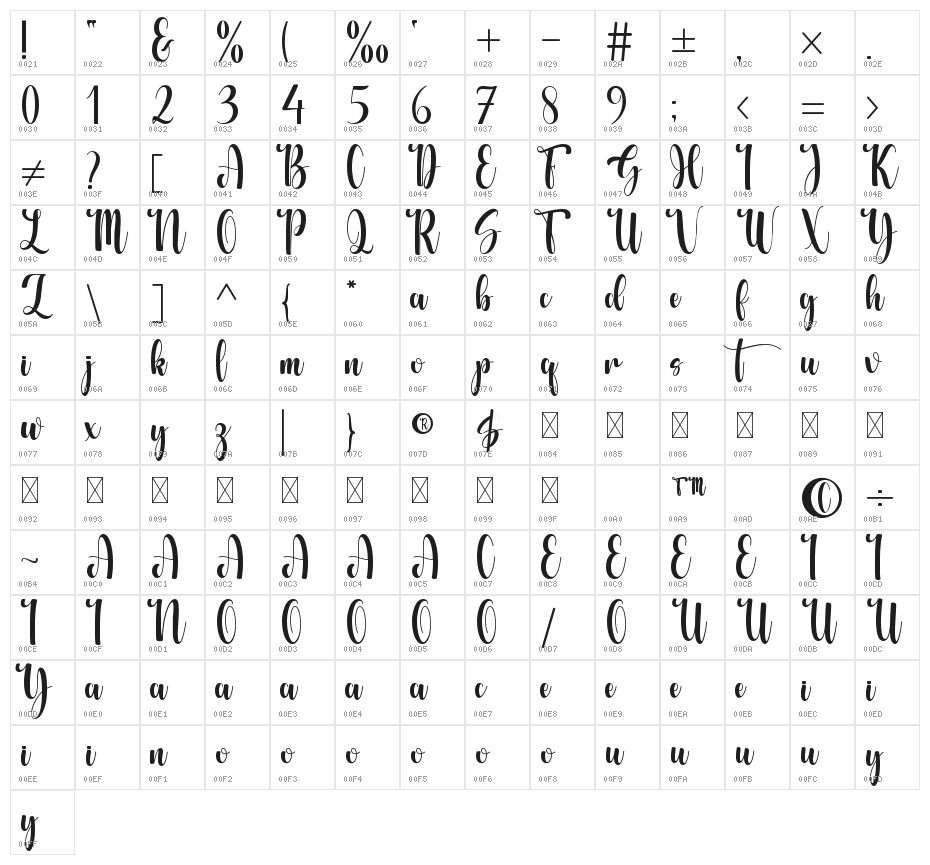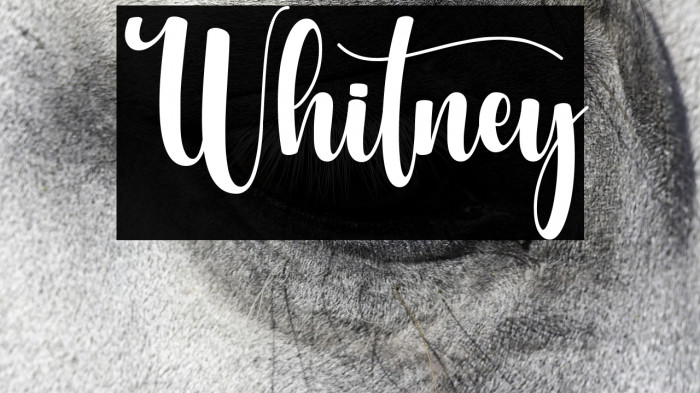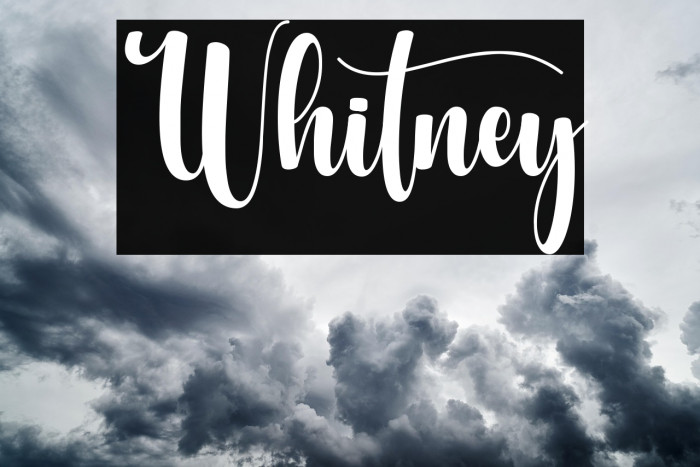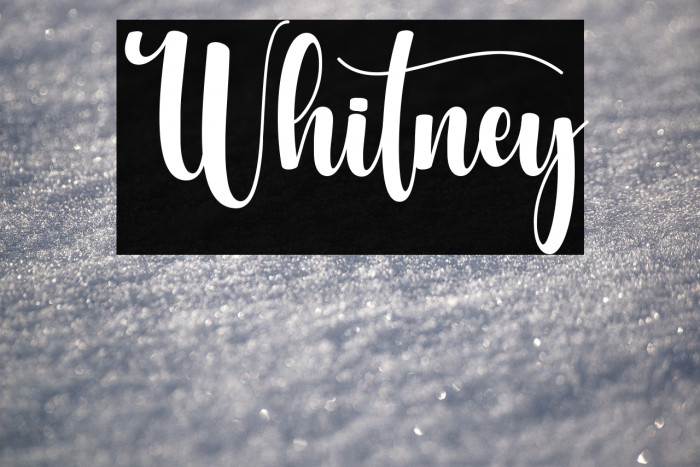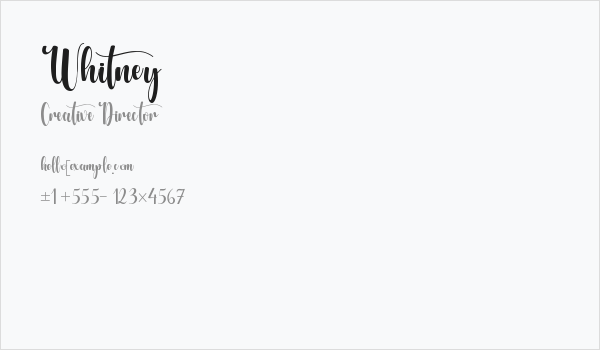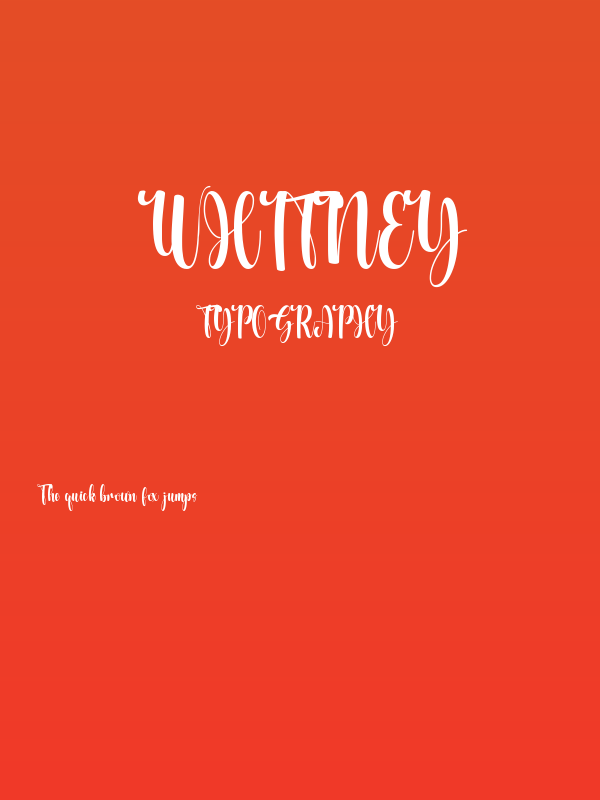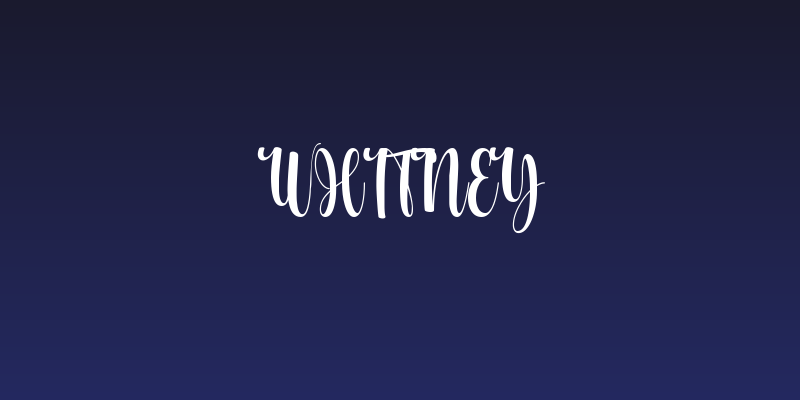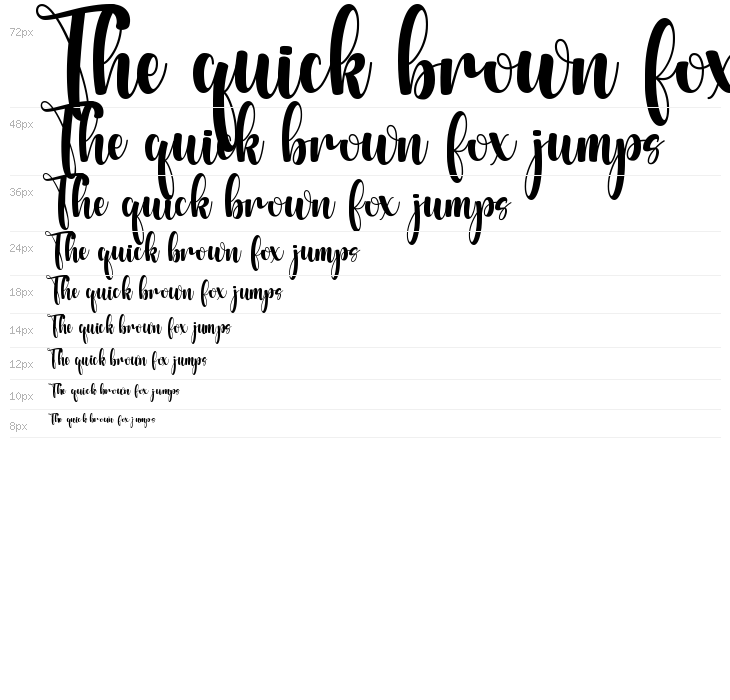
Whitney Font
Whitney Description
This font features an elegant and flowing script style, characterized by its smooth, cursive lines and artistic flair. The uppercase letters are bold and ornate, with intricate loops and swirls that add a touch of sophistication. The lowercase letters maintain a consistent flow, complementing the uppercase with their graceful curves. Numbers are designed with a similar flair, ensuring a cohesive look throughout. Special characters are thoughtfully integrated, maintaining the font's overall aesthetic. This font is ideal for projects that require a touch of elegance and creativity.